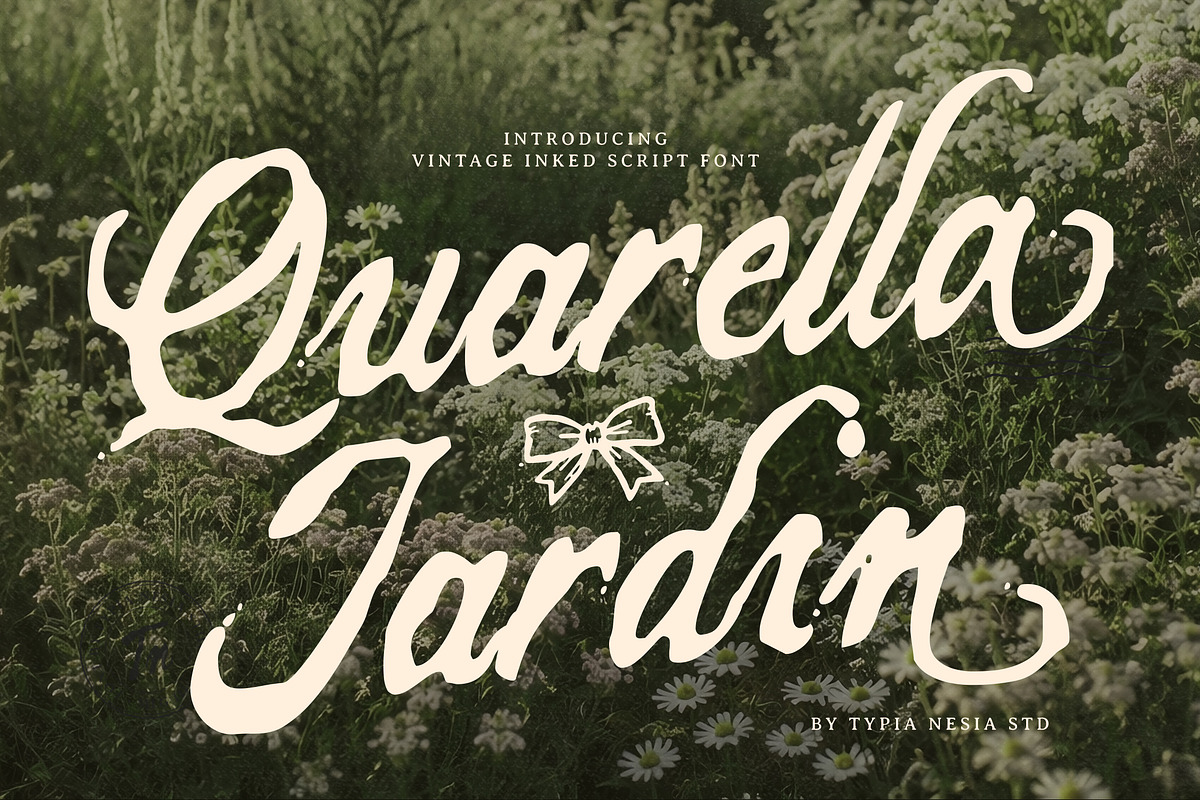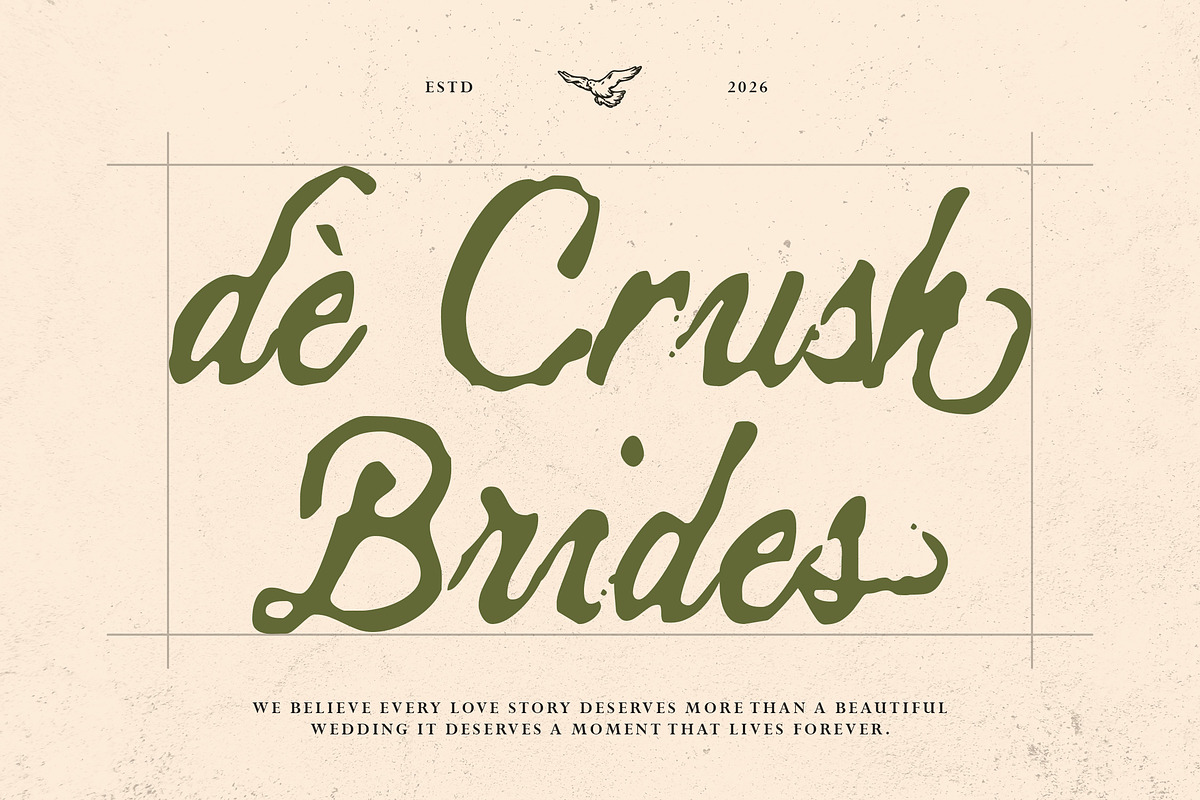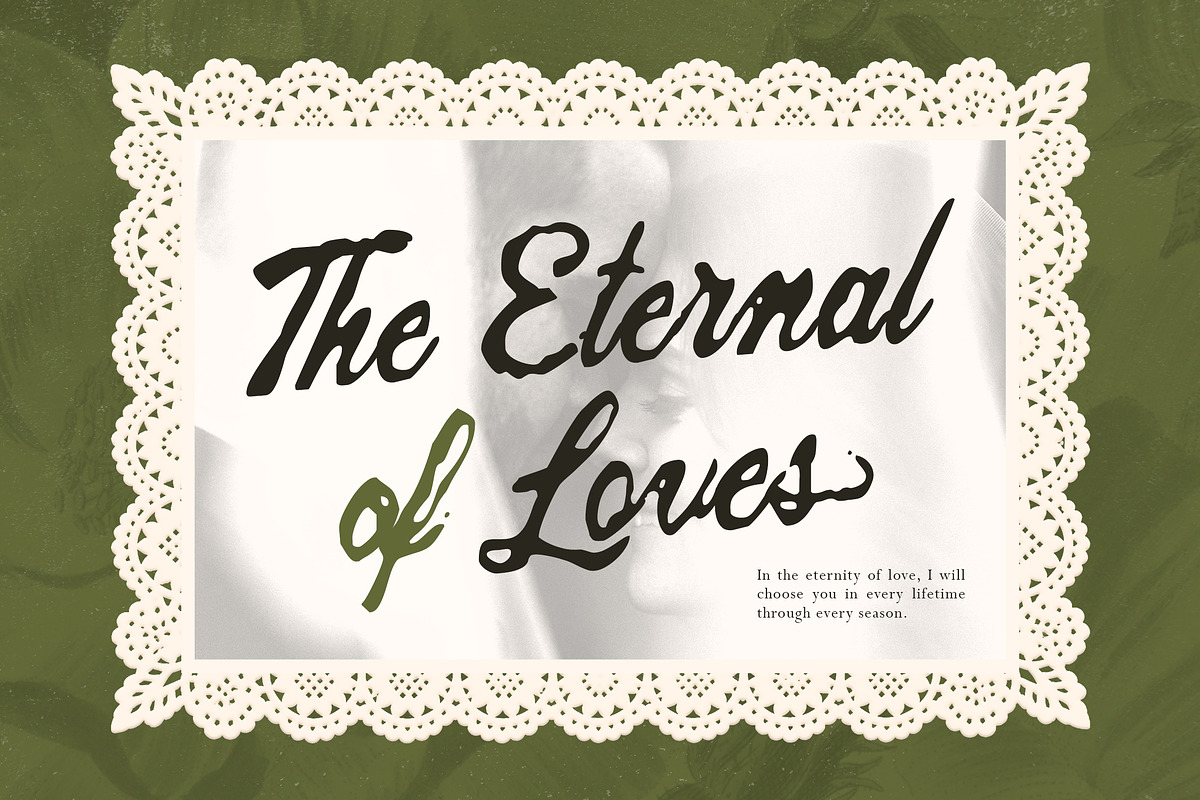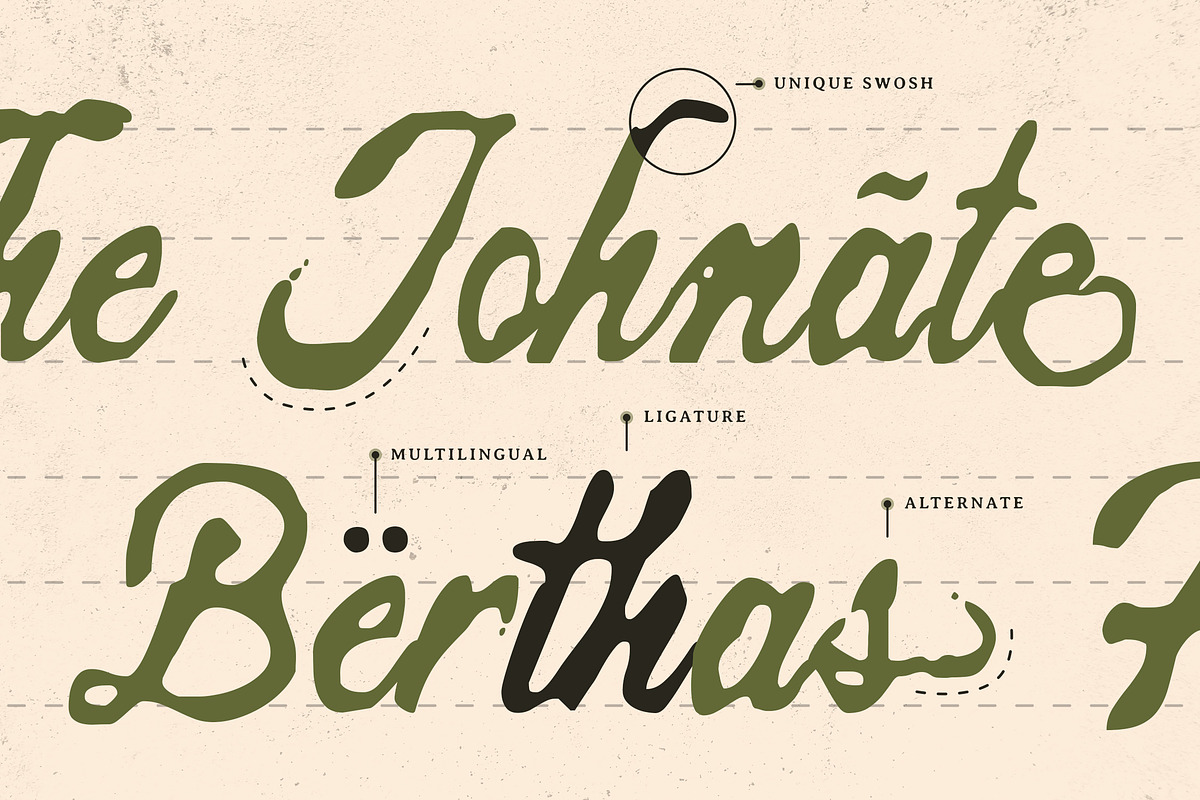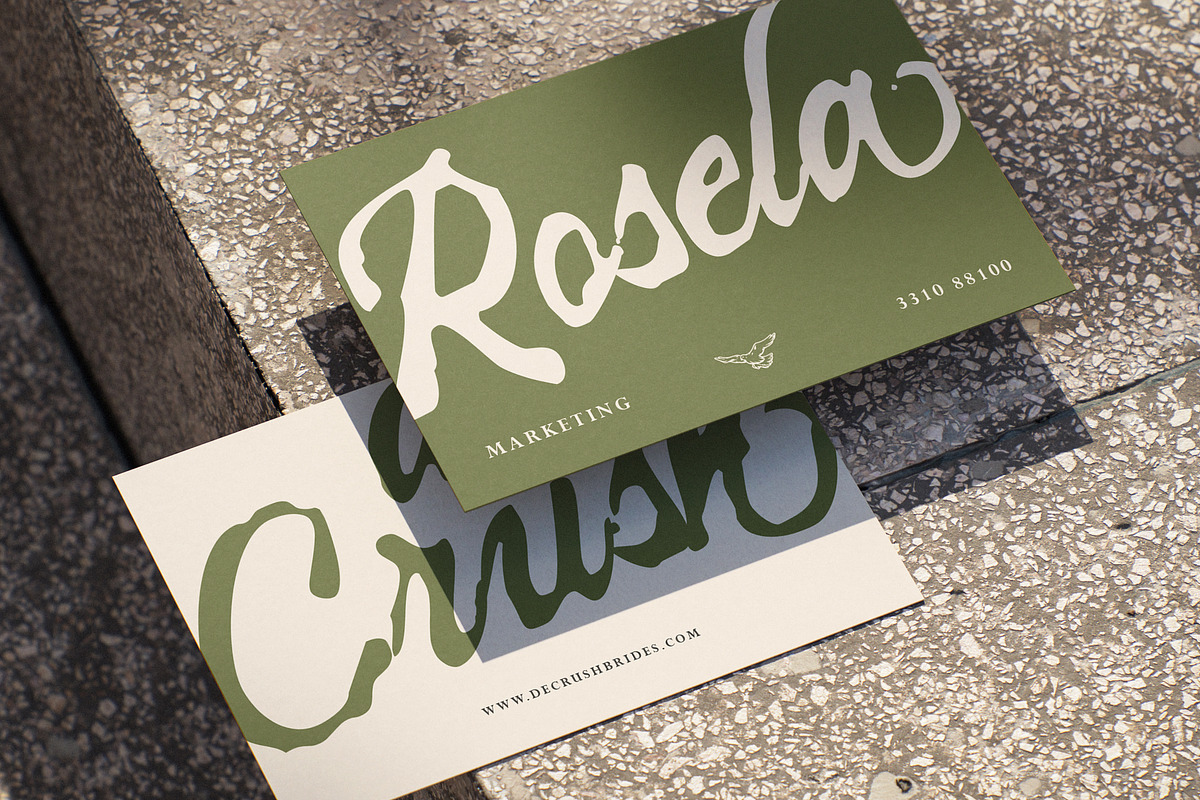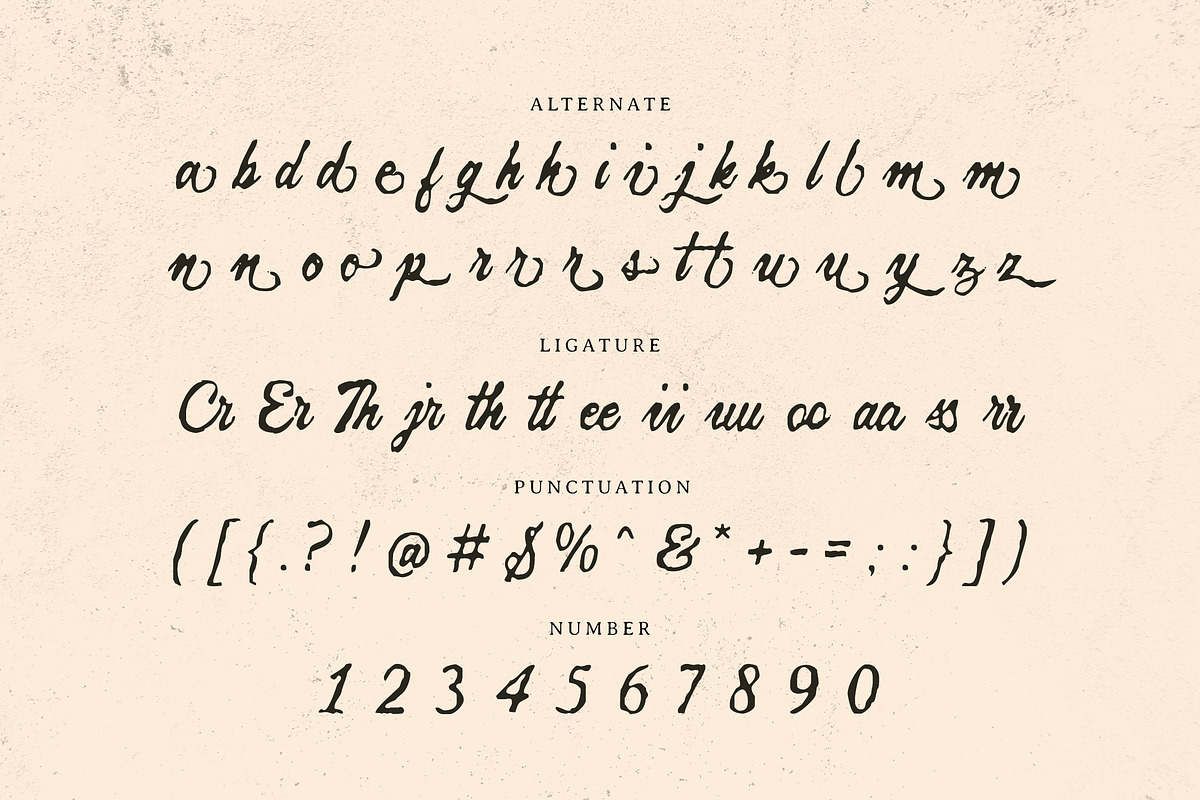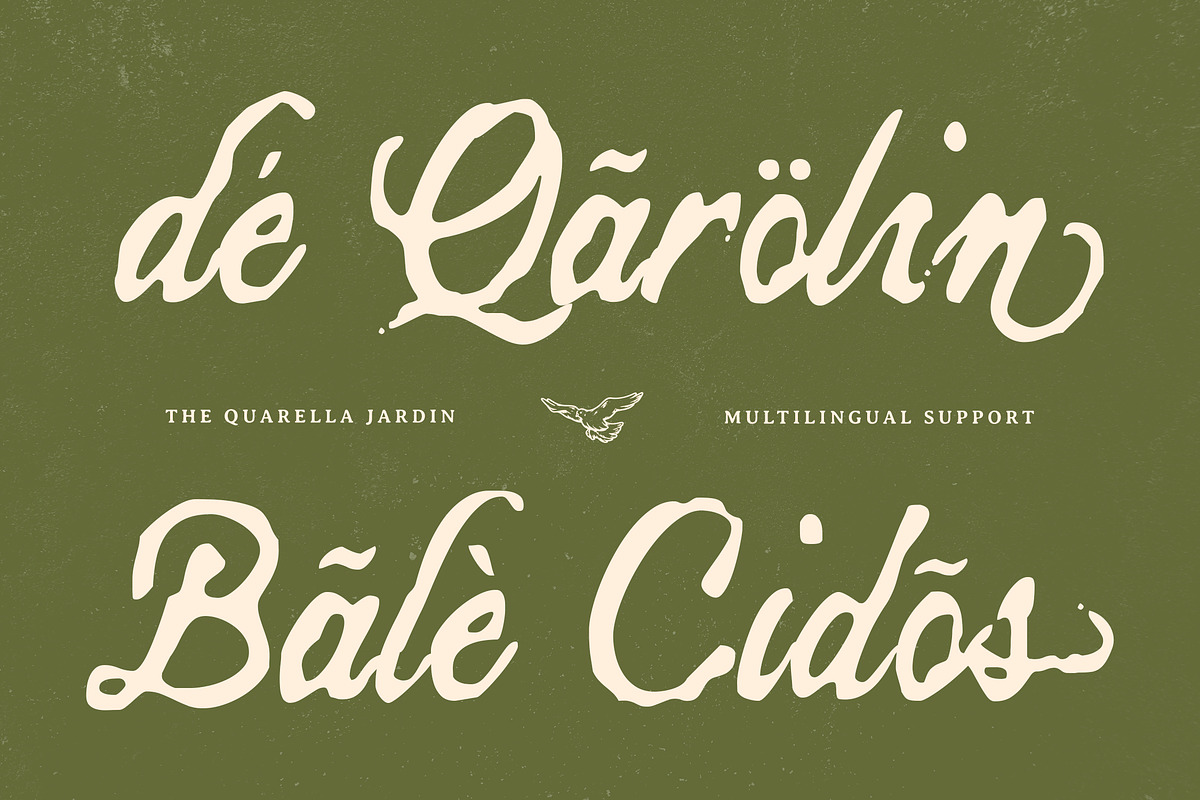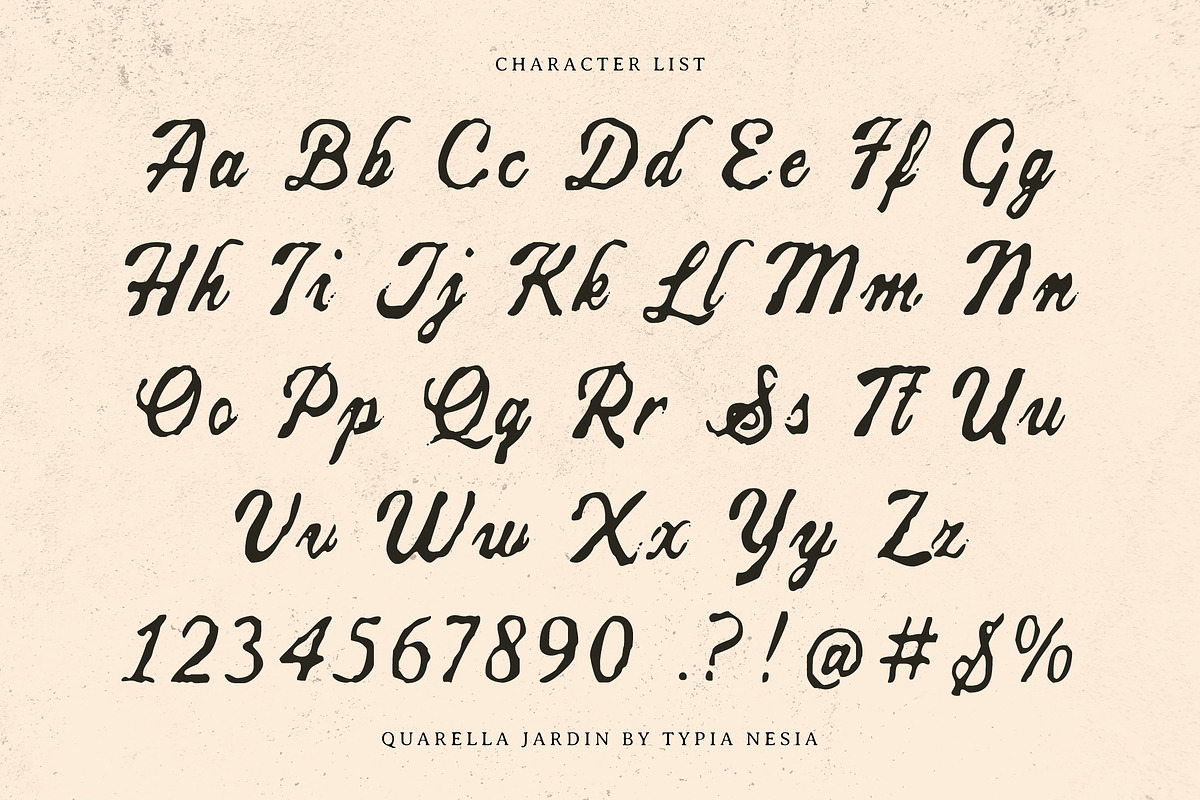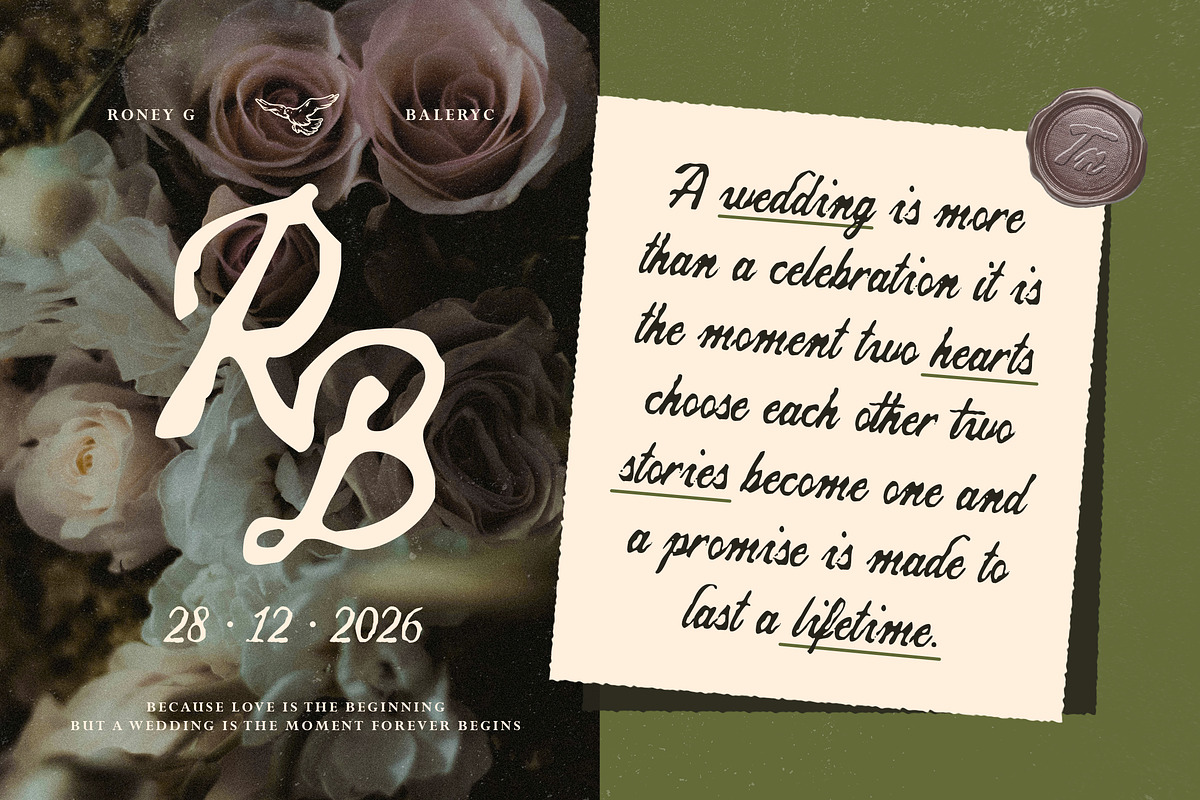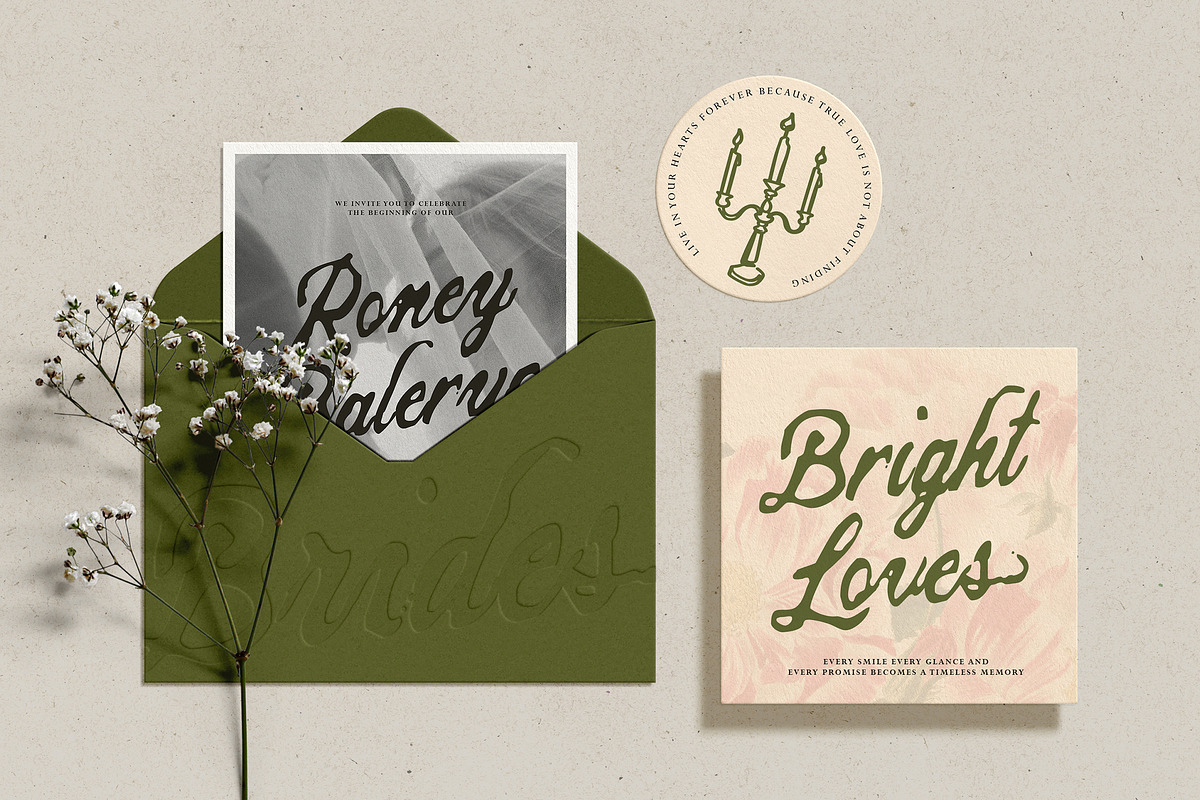
Quarella Jardin - Vintage Script
Quarella Jardin - Vintage Inked Script Font for Romantic & Botanical Design
Quarella Jardin is a vintage inked script font featuring charming hand-drawn textures and fluid, organic cursive strokes. Designed to bring a warm, nostalgic, and romantic feel to your projects, it delivers a high visual impact that stands out across artisan brands and vintage-inspired layouts.
Perfect for botanical packaging, wedding stationery, rustic logos, cottagecore social media graphics, and handmade merchandise labels. It features opentype ligatures, alternative characters, and a realistic ink bleed texture, making it versatile and easy to use across a wide range of design needs.
Embrace the timeless warmth of hand-poured ink and give your next design a beautifully flawed, romantic touch with Quarella Jardin today!